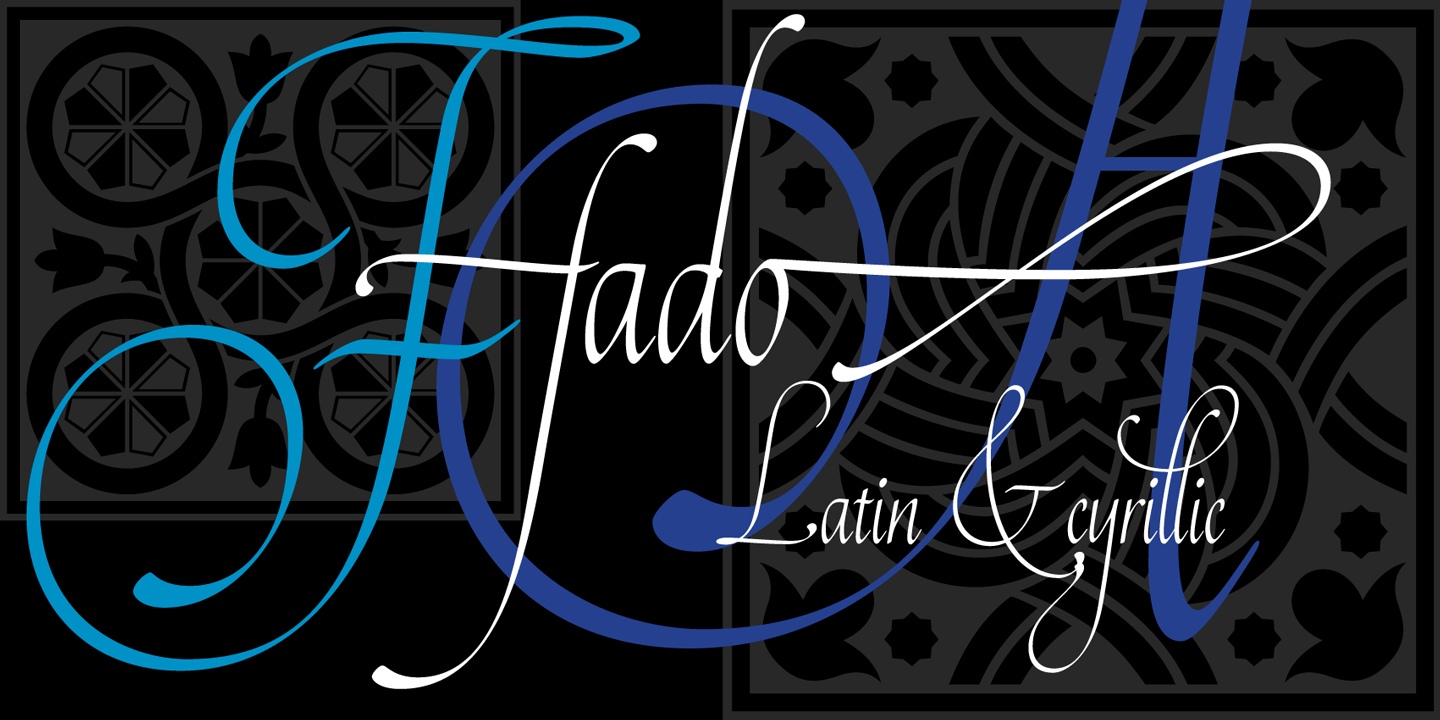
Fado Font
Fado Font is perfect for Portuguese cultural projects, traditional music venues, melancholic poetry publications, soulful restaurant branding, heritage festival materials, and emotional storytelling designs. This expressive typeface excels in cultural documentaries, folk music promotions, nostalgic branding campaigns, and any application where deep emotion and Portuguese tradition create meaningful cultural connections.
What makes Fado Font so exciting is its extraordinary ability to capture the profound melancholy and passionate soul of Portuguese Fado music through typography. The font features flowing curves and emotional letterforms that seem to echo with the haunting beauty of traditional Portuguese songs. Its expressive character brings authentic cultural depth to designs while conveying the bittersweet emotions that define this UNESCO-recognized musical heritage.
Fado Font comes in an emotional family including Light, Regular, Medium, Bold, and Intense weights. Each style features complete uppercase and lowercase character sets, Portuguese-specific characters, musical symbols, traditional numerals, and expressive punctuation marks. The font family also includes contextual alternates and flowing ligatures that create natural rhythm and emotional continuity throughout text compositions.
This deeply moving typeface transforms written words into vessels of cultural emotion and Portuguese identity. Fado Font Free Download provides designers and cultural organizations with powerful typography that honors Portuguese heritage while communicating universal themes of love, loss, and longing. Whether you're creating materials for cultural events, developing brands for Portuguese businesses, or designing publications about traditional music, this font delivers authentic emotional resonance with professional quality.
The font's soulful character makes it particularly suitable for cultural centers, traditional restaurants, music venues, and heritage organizations. Its thoughtful readability ensures that Fado Font communicates clearly while maintaining its distinctive emotional depth. The font's ability to evoke nostalgia and cultural pride makes it an essential tool for any project seeking to celebrate Portuguese culture and connect with audiences through the powerful emotional language of traditional Fado music.